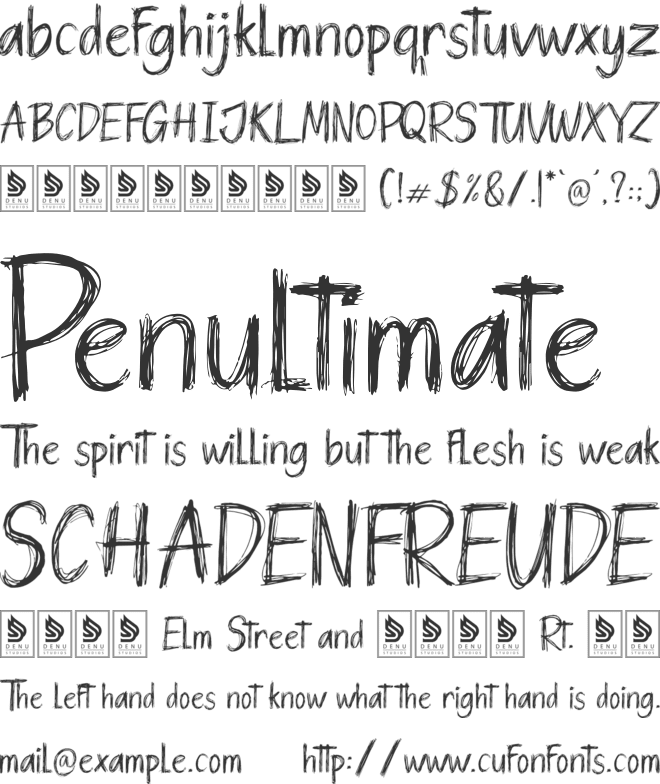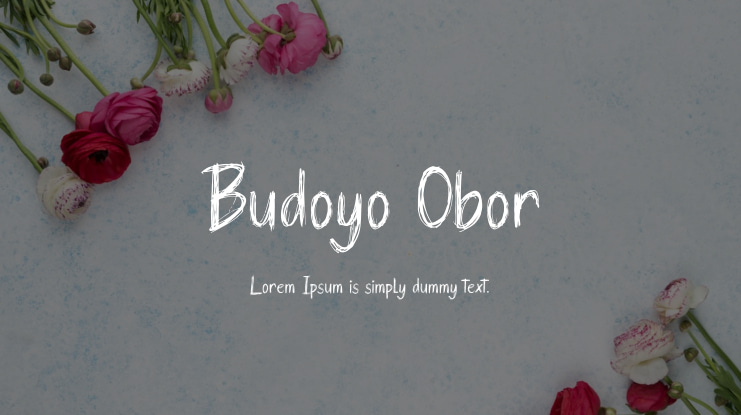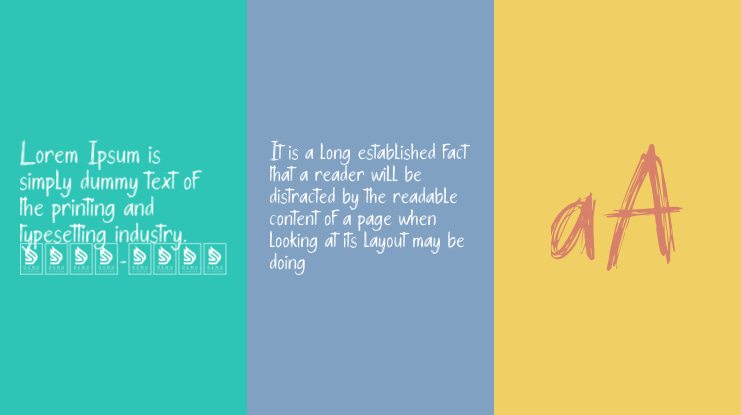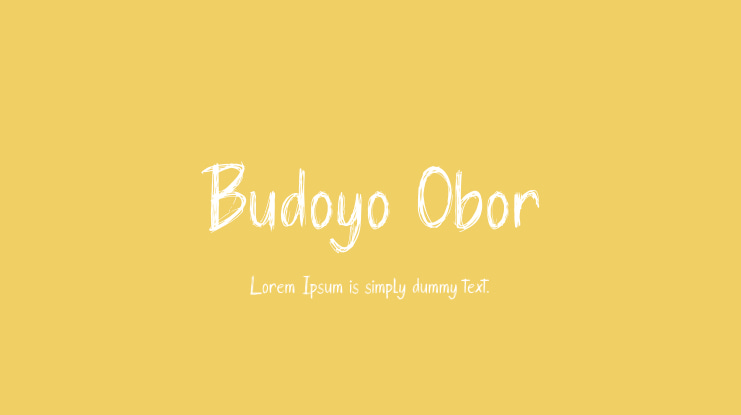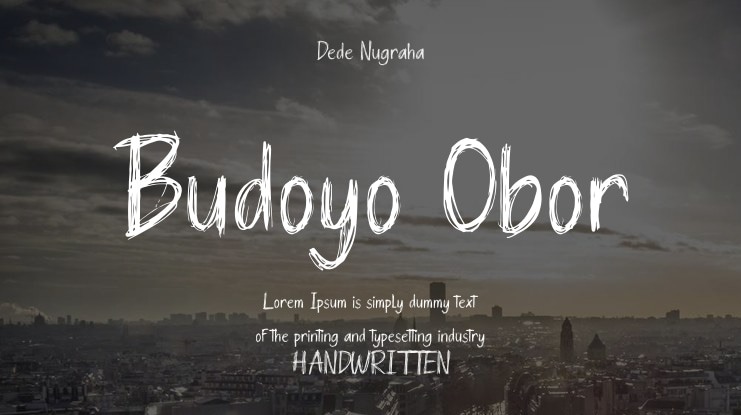
Budoyo Obor | Scribbles Font is suitable for a variety of projects such as logos, branding projects, homeware designs, product packaging, mugs, quotes, posters, shopping bags, t-shirts, book covers, name cards, invitation cards, greeting cards, labels, photography, watermarks, special events, and any other creative projects that need a Scribbles Font touch.